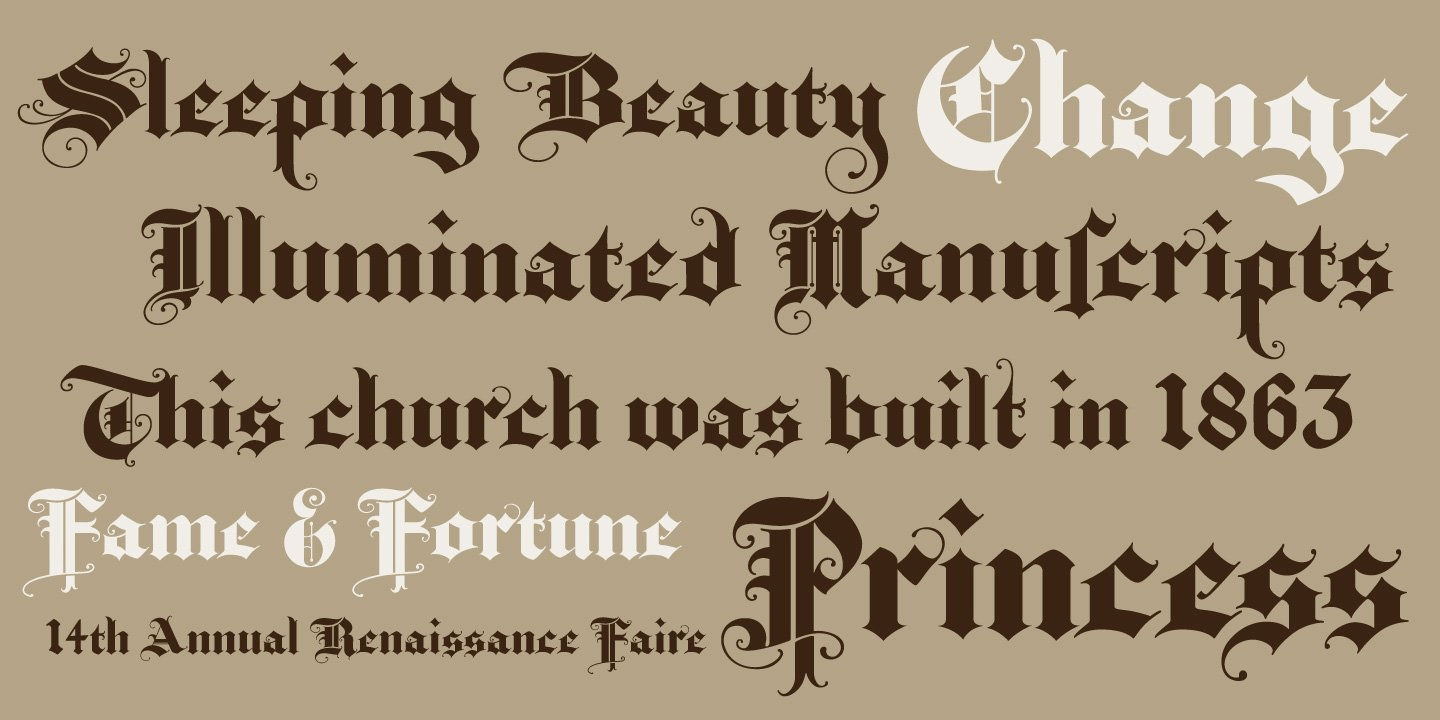
Baroque Text
Font Family by Jukebox
Baroque Text is a gorgeous Blackletter style font with extravagant flourishes and letterforms. Inspired by a handlettered alphabet in an old "how-to" book on lettering, this typeface is both beautiful and commanding in its presence. Baroque Text has been a popular seller for Jukebox since its release.